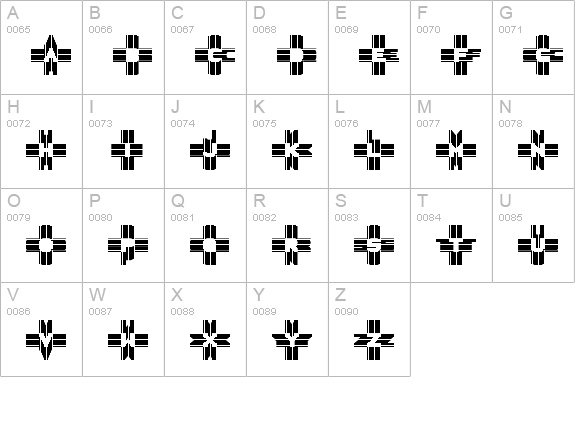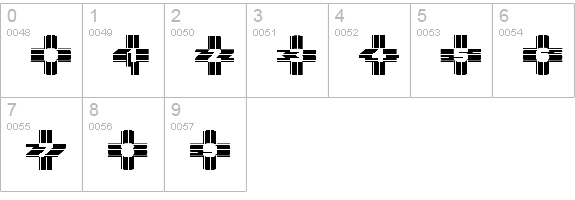
AlphaGeometrique-Contour Font Details
AlphaGeometrique-Contour font is a modern and stylish typeface that is perfect for giving your designs a contemporary edge. This unique font features clean lines and geometric shapes that create a sophisticated and eye-catching look. The contour detailing adds an extra dimension to the characters, making them stand out on the page. What's even better is that AlphaGeometrique-Contour font is available for free download at FontsMarket.com. This means you can easily access this versatile font and use it in your projects without any cost. Whether you're designing a logo, poster, or website, AlphaGeometrique-Contour font is sure to make a statement and leave a lasting impression. Download it today and elevate your designs with this fantastic typeface.